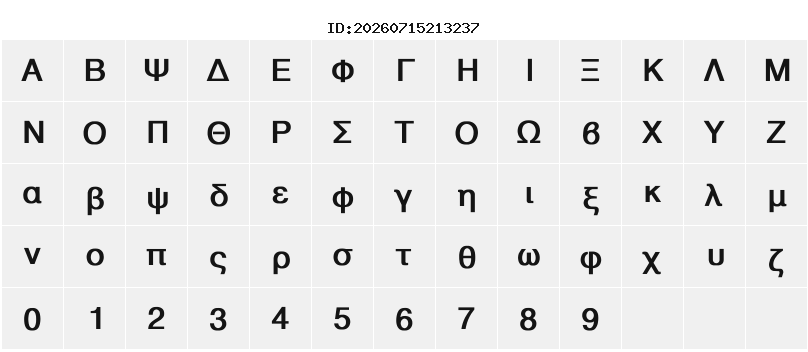
• Font Name: Athens Greek
• Full Font Name: Athens Greek Bold
Athens Greek.ttf is a modern, elegant sans-serif font designed for ultimate readability and visual harmony. Perfect for branding, headlines, web design, and print materials.